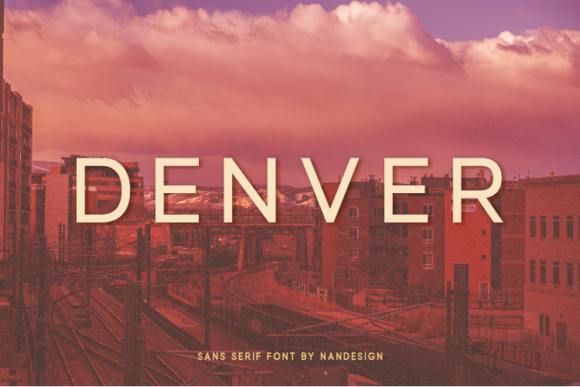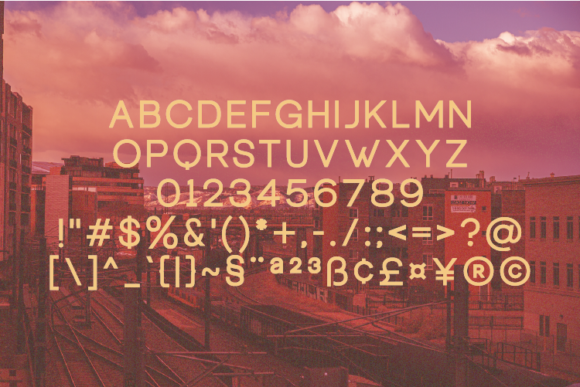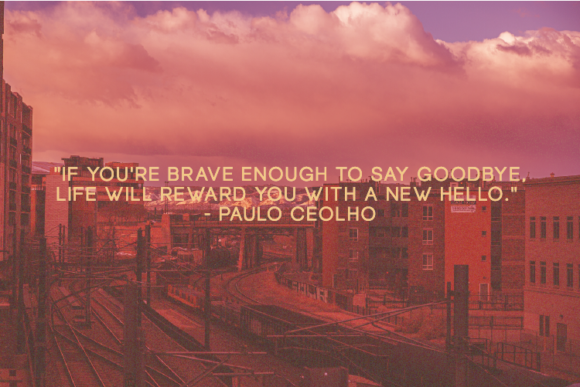
The Perfect Font for a Distinctive Visual Identity
Have you ever stumbled upon a beautifully designed product packaging or a magazine cover that left you wondering what made it so striking? It’s often the subtle details that make all the difference, and for designers, finding the right font can be a game-changer. The Denver Font is one such gem that has been gaining popularity for its clean, slim, and simple sans serif design.
This versatile font is perfect for a wide range of applications, from product packaging and branding projects to magazine covers, social media, and even wedding designs. Its understated elegance makes it an excellent choice for expressing words above a background, adding a touch of sophistication to any visual identity.
For designers, the Denver Font is a valuable asset that can elevate their work and help them stand out in a crowded market. Its simplicity and versatility make it a go-to choice for many creatives, and its growing popularity is a testament to its effectiveness in conveying a distinct visual identity.
Detroit Font Key Features
- Unique Characteristics: The font features a modern and sleek design, with clean lines and a high x-height, making it perfect for body text and headings.
- Font Family: The font family includes multiple weights and styles, including light, regular, bold, and italic, providing a wide range of options for designers.
Designer Review: Denver Font
Overall, I think the Denver Font is a solid choice for those looking for a modern sans-serif font. ✨ The rounded edges and clean lines give it a friendly feel that’s perfect for user interfaces and digital products. The font is highly legible, even at small sizes, making it a great option for body text and headings.
One of the standout features of Denver Font is its flexibility. ✨ It comes in a range of weights, from light to bold, allowing designers to create a consistent visual hierarchy across their designs. The font also supports a wide range of languages, making it a great choice for international projects.
However, there are a few limitations to consider. ⚠️ One of the main issues is that the font can feel a bit generic in certain contexts. It’s not particularly distinctive or memorable, which may make it harder to stand out in crowded markets. Additionally, the font may not be suitable for projects that require a more traditional or serif font feel.
Overall, I think the Denver Font is a good choice for designers who want a clean, modern font that’s easy to read and use. While it may not be the most exciting or distinctive font, it’s a solid option for a wide range of projects.
Pros:
- Legible and easy to read
- Flexible and comes in a range of weights
- Supports a wide range of languages
Cons:
- Can feel generic or unmemorable in certain contexts
- Not suitable for projects that require a traditional or serif font feel
To get the most out of Denver Font, use it for headings and titles to add a touch of elegance and sophistication to your designs. Experiment with different font sizes and combinations to create visually appealing effects.
DENVER FONT is commonly used for:
- Headings and titles in magazines, brochures, and marketing materials.
- Corporate identity and branding materials, such as business cards and letterheads.
- Wedding invitations and event materials.
Alternatives to Denver Font
Open Sans is a modern sans-serif font that is highly legible and versatile. It is a great choice for digital interfaces, such as websites and mobile apps, due to its clean and simple design. When to use: For digital interfaces, body text, and headings. Compared to Denver Font, Open Sans is more modern and has a slightly more condensed feel.